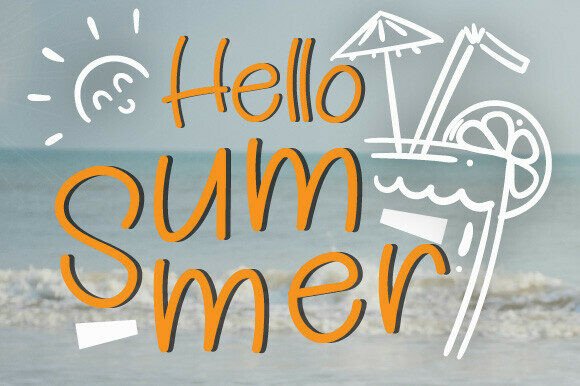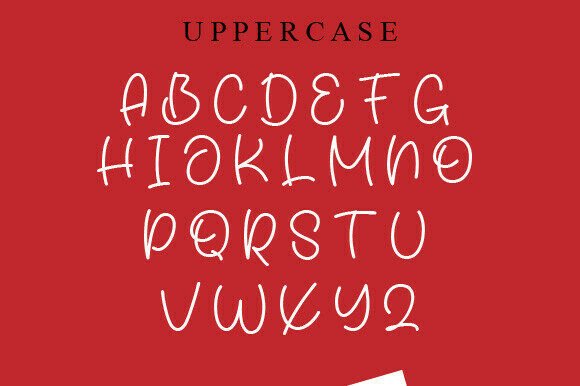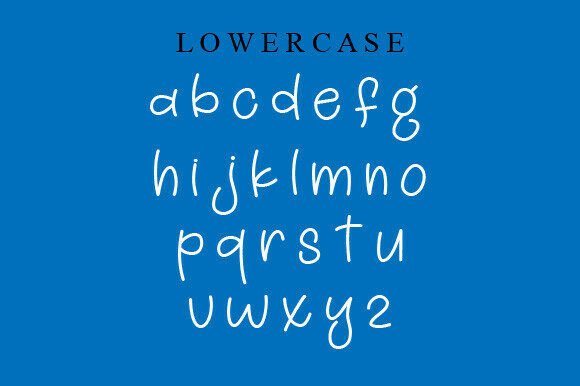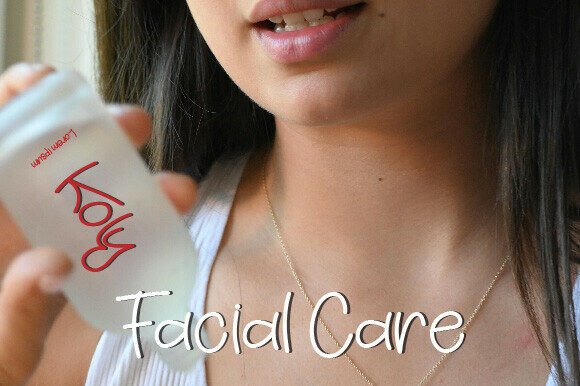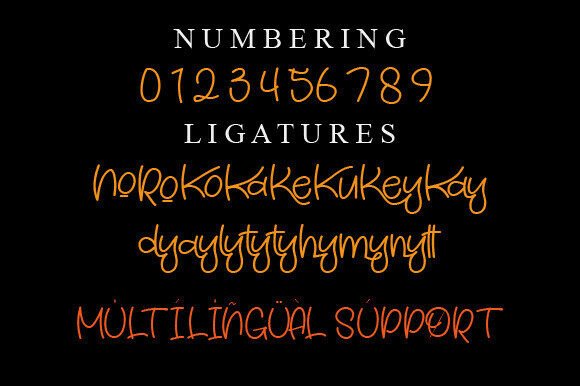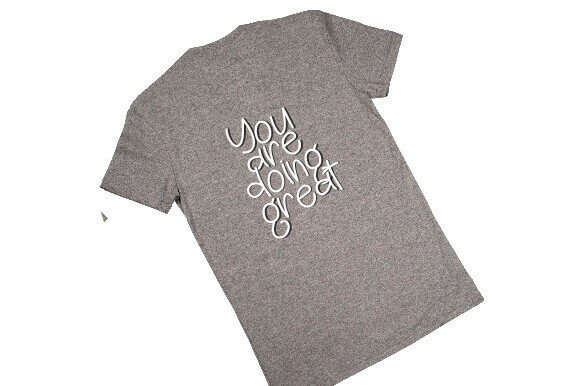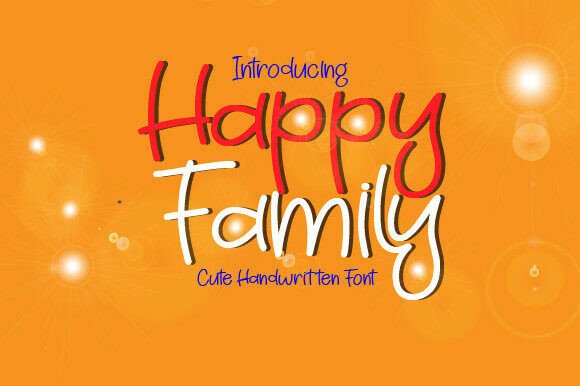
Discover the Whimsical World of Happy Family Font
Step into the enchanting realm of Happy Family font, a charmingly original handwritten typeface that redefines the norm. This splendid epitome of design innovation and unique flair is crafted to instill an irresistible allure to your typography. In this article, we’ll immerse you in the delightful world of Happy Family – a harmonious rendezvous of art and alphabets, creating a captivating symphony of design aesthetics.
The Birth of Happy Family Font
Happy Family font is a fresh take on letterforms, born out of a passion for creative expression and a desire to push the boundaries of traditional typography. Its distinctive character and style are the brainchild of talented designers who sought to create a typeface that would evoke emotions, spark imagination, and add a touch of whimsy to any design project.
Distinctive Character and Style
The Happy Family font boasts a unique and captivating style that sets it apart from other typefaces. Its handwritten charm, coupled with a dash of playfulness, makes it an excellent choice for designers and crafters looking to add a personal touch to their work. Each letterform is carefully crafted to exude a sense of warmth, friendliness, and approachability, making it perfect for projects that require a human touch.
Design Innovation and Unique Flair
Happy Family font is a shining example of design innovation, showcasing a bold and unconventional approach to typography. Its creators have skillfully blended art and functionality, resulting in a typeface that is both aesthetically pleasing and highly legible. The font’s unique flair is evident in its subtle imperfections, irregularities, and quirks, which add to its charm and character.
Happy Family font is an excellent choice for a wide range of creative projects, including:
- Branding and logos: Add a touch of personality to your brand identity with this charming typeface.
- Digital and print media: Use Happy Family font to create eye-catching headlines, titles, and captions that grab attention.
- Web design: Enhance your website’s typography with this beautiful font, perfect for blog posts, articles, and more.
- Crafting and DIY projects: Add a personal touch to your handmade creations, such as cards, invitations, and scrapbook pages.
Why Choose Happy Family Font?
There are many reasons why Happy Family font stands out from the crowd:
- Unique style: Its distinctive character and style make it an excellent choice for designers looking to create something new and original.
- High legibility: Despite its playful nature, Happy Family font remains highly legible, making it suitable for body text and longer content.
- Versatility: This typeface can be used in a variety of contexts, from digital media to print materials.
In conclusion, Happy Family font is a charmingly original handwritten typeface that offers a fresh take on letterforms. Its distinctive character and style, design innovation, and unique flair make it an excellent choice for designers and crafters looking to add a touch of whimsy to their work. Whether you’re creating a brand identity, designing a website, or crafting handmade projects, Happy Family font is sure to inspire and delight.